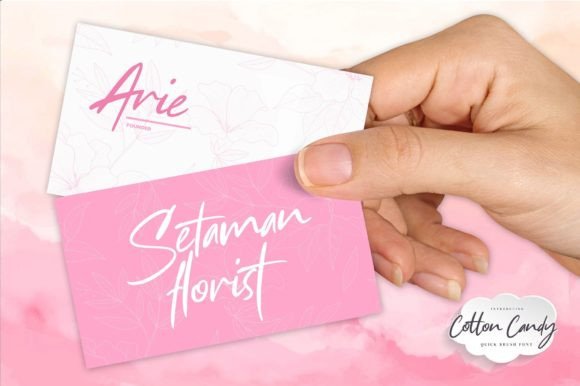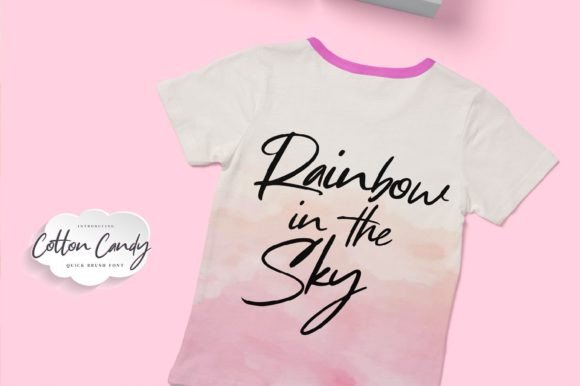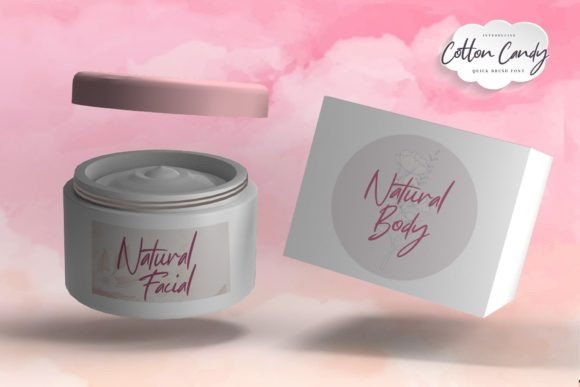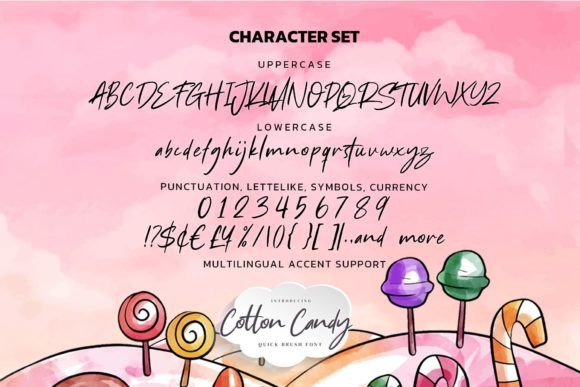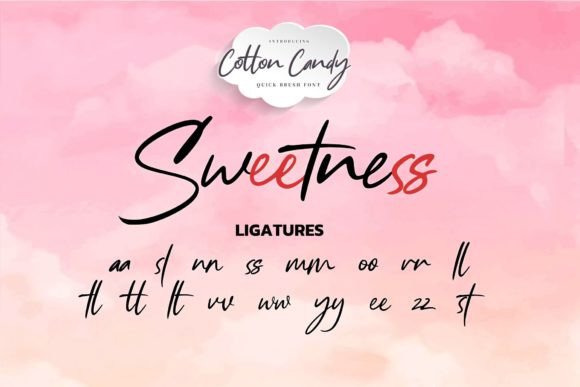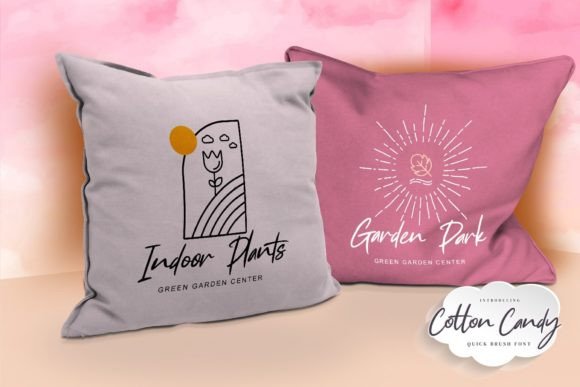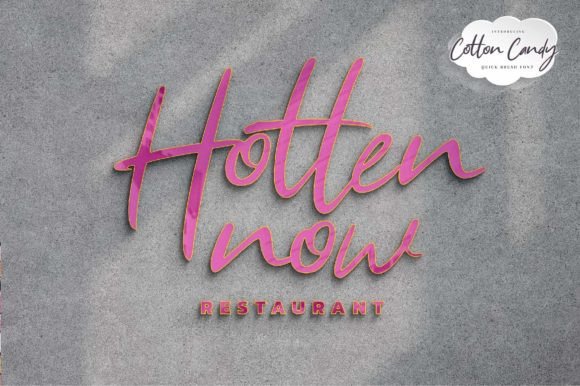
Cotton Candy Font
About Cotton Candy Font
Cotton Candy is a dynamic brush script font that exudes a quick and naturally textured style, characterized by a clear appearance and dramatic movement. This font is a fantastic choice for a wide range of creative projects, adding a touch of spontaneity and artistic flair to your designs.
Whether applied to logos, printed quotes, invitations, cards, product packaging, headers, watermarks on photography, advertisements, product designs, stationery, wedding designs, special events, or any project that requires a handwritten touch, Cotton Candy brings a vibrant and expressive quality to the forefront.
The quick and naturally textured style of Cotton Candy enhances its versatility, making it suitable for both casual and formal design contexts. Its dynamic movement gives your text a sense of energy and liveliness, making it stand out in various applications.
In summary, Cotton Candy is more than just a font; it’s a design tool that adds a quick and textured brush script to your creative toolbox. Whether you’re working on print or digital media, its dynamic style makes it a captivating choice for projects that demand a distinctive and expressive handwriting taste.